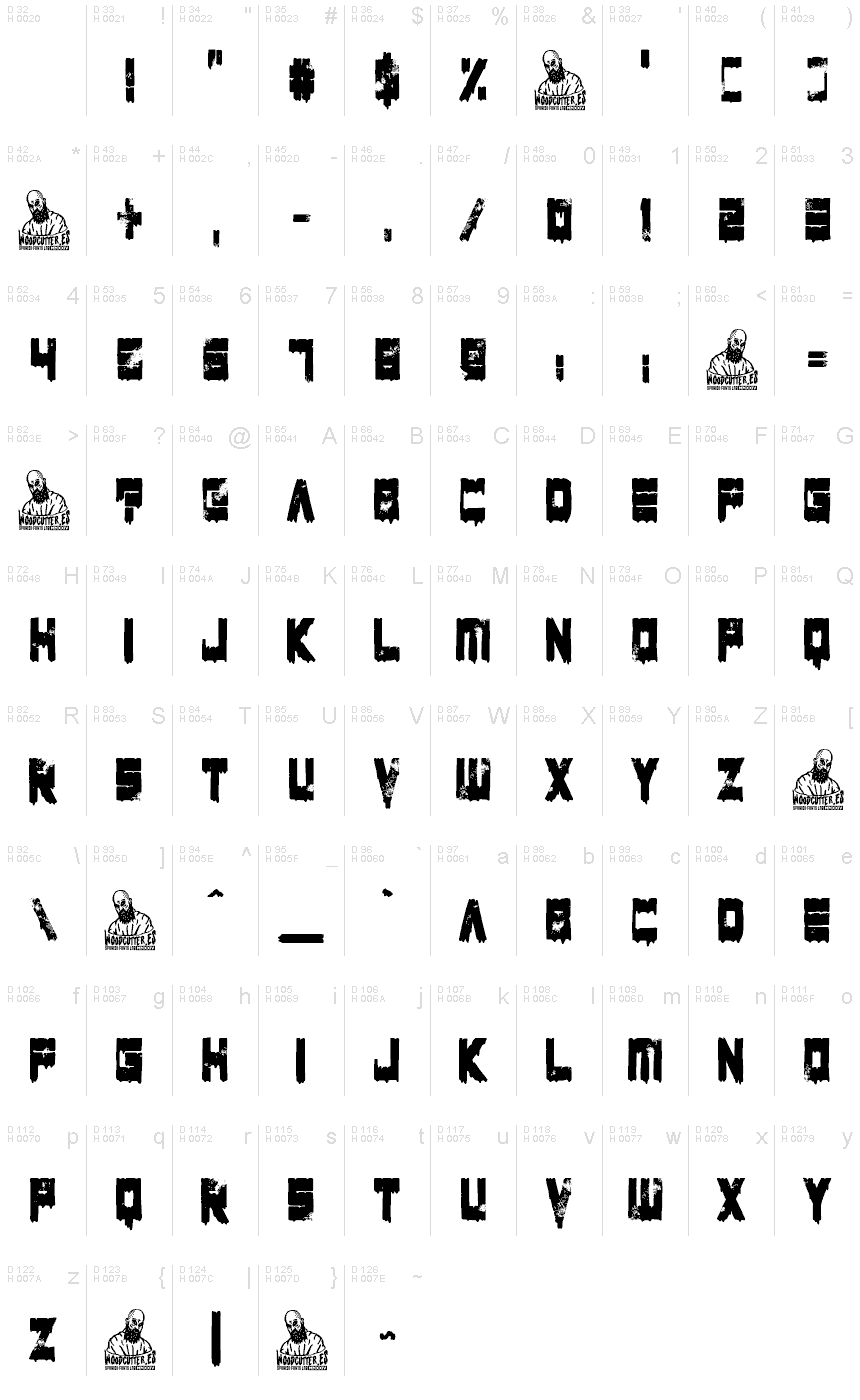
Artificial Intelligence Is Shit
Artificial Intelligence Is Shit font by Woodcutter is a bold, condensed display font inspired by grunge and urban styles. With an eroded and distressed appearance, the font brings a rebellious vibe, making it ideal for edgy designs. Its alternative style and striking look make it perfect for those seeking an unmistakably bold appearance with attitude.
Use this free display font in album covers, band posters, concert invitations, game graphics, book covers, packaging designs. Other design ideas include movie titles, t-shirt prints, brand logos or stationary items like stickers and stamps.